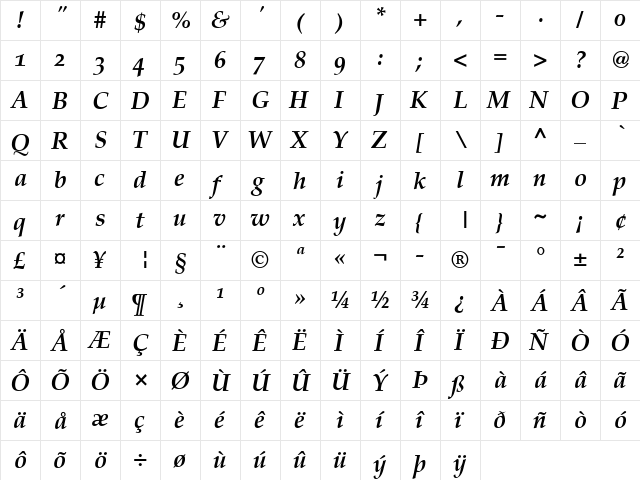
Palatino SC Bold Italic
Design Context for Palatino SC Typeface
Palatino SC offers clean, dependable letterforms without strong stylistic allegiance, making it a practical choice for designers who need flexibility. The dynamic lean of this cut emphasises speed and emphasis in any layout. The heavy weight commands attention and anchors typographic hierarchies.
Pro Tip: Use Palatino SC for emphasis, pull quotes, and subheadings where its slanted energy can add rhythm to the layout.